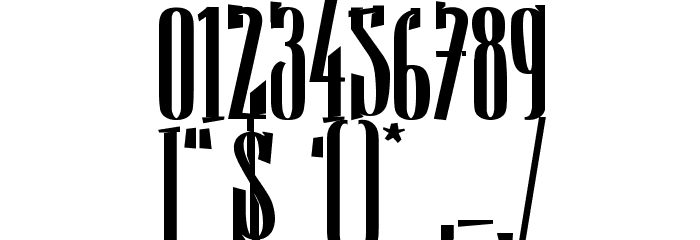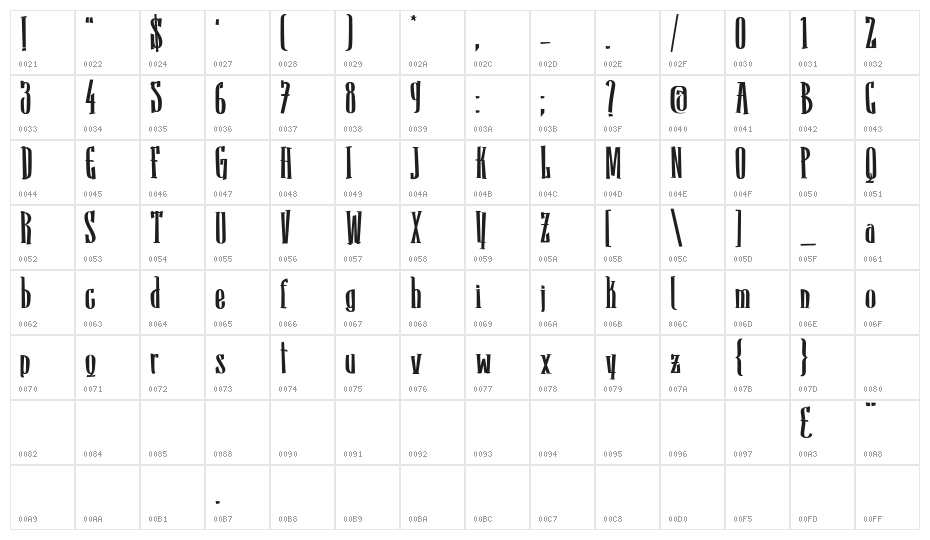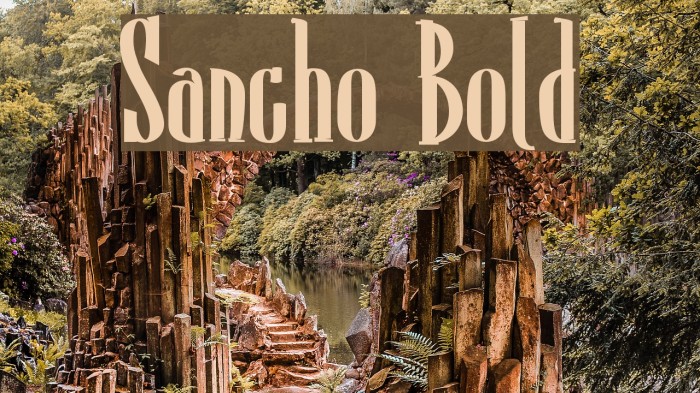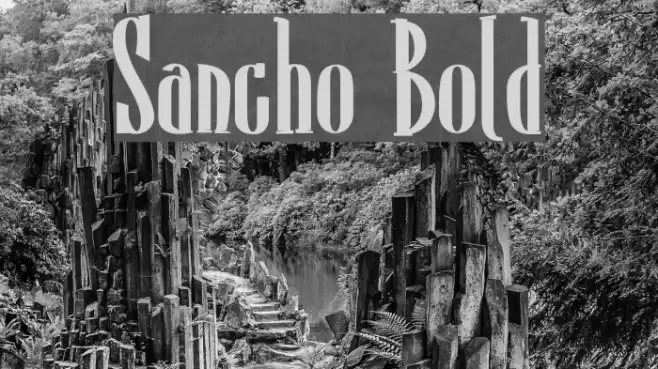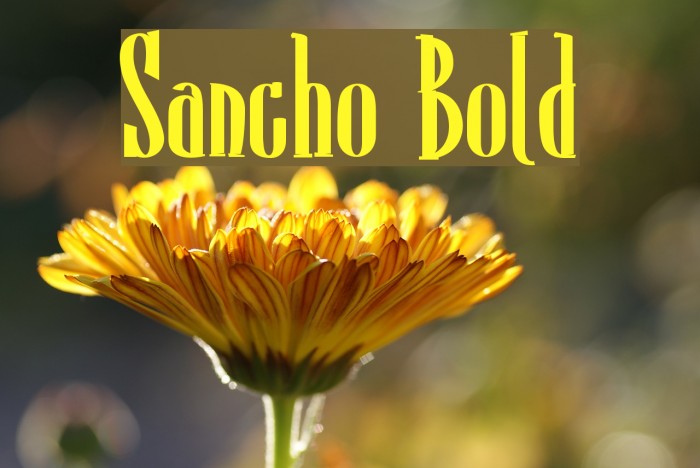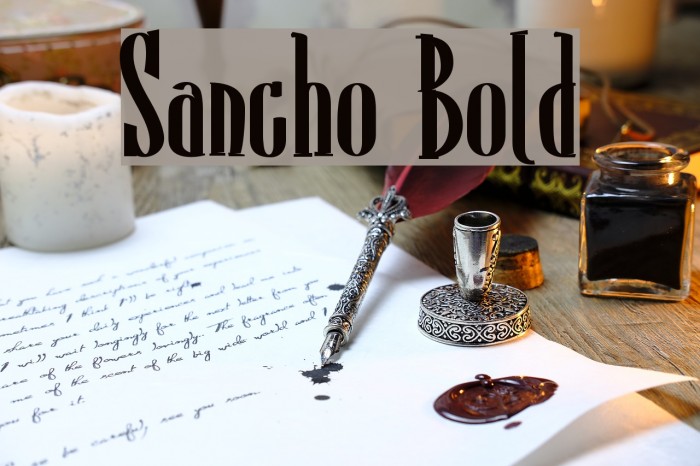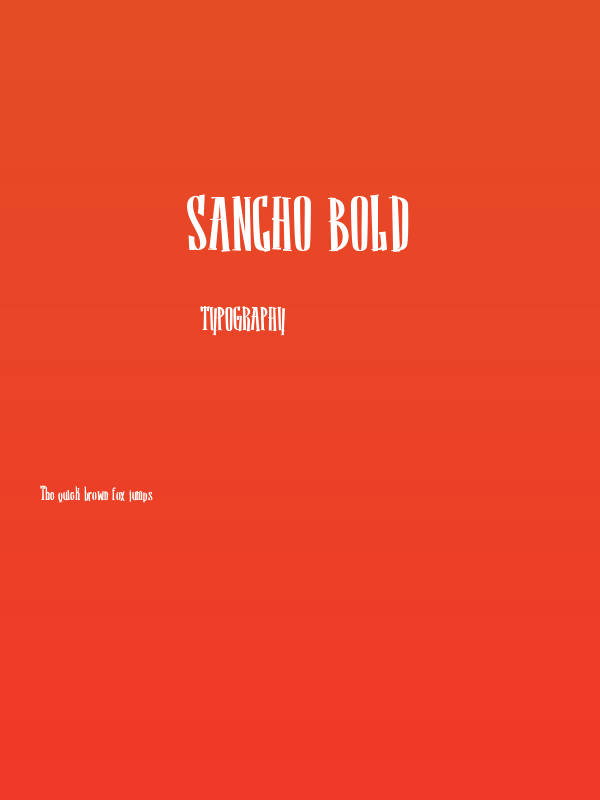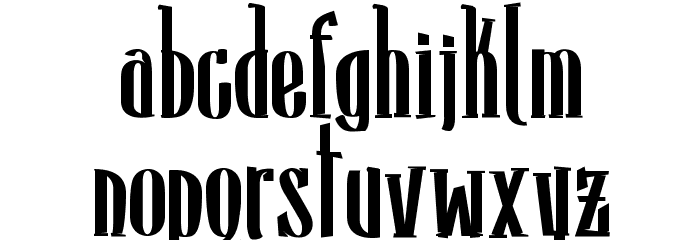
Sancho Bold Font
Sancho Bold Description
This font exhibits a bold and striking appearance with elongated, narrow characters that create a dramatic and impactful look. The uppercase letters are tall and commanding, while the lowercase letters maintain a consistent style with slightly rounded edges. The numerals are distinct and maintain the same boldness, ensuring readability. Special characters are designed to match the overall aesthetic, providing a cohesive look across all glyphs. The font's unique style makes it suitable for attention-grabbing headlines and titles.